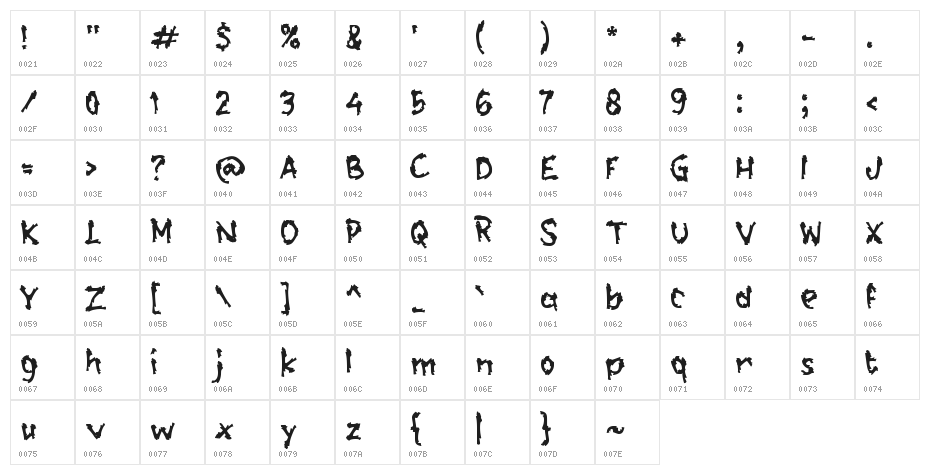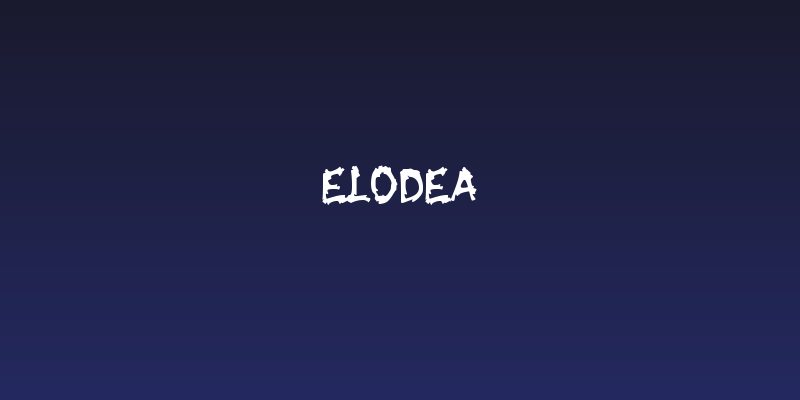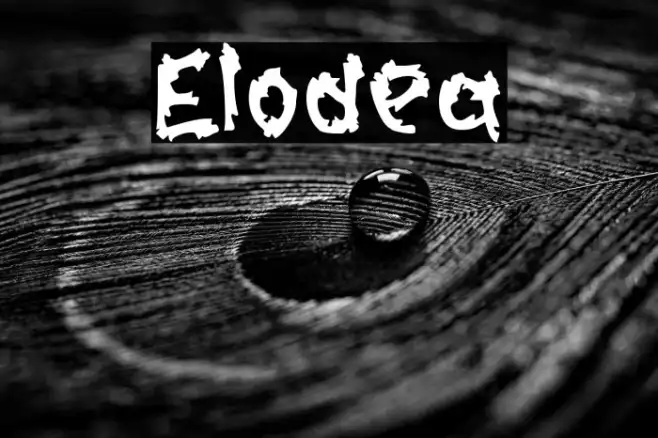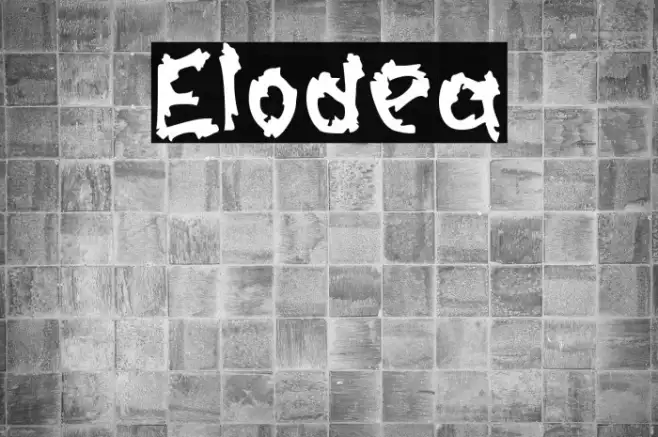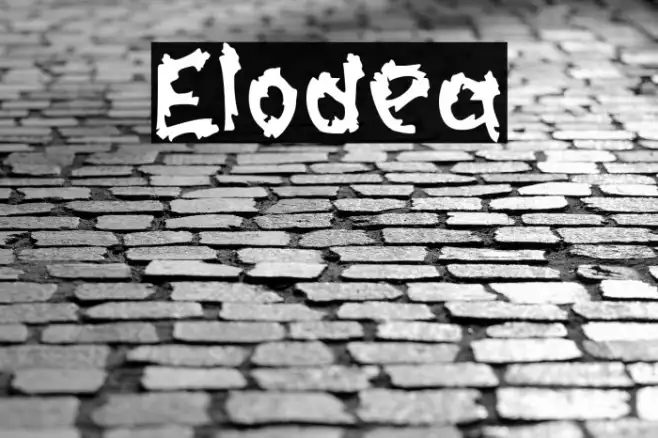
Elodea Font
Elodea Description
This font features a bold and rugged appearance, with a hand-drawn aesthetic that gives it a unique and artistic flair. The characters are irregular and jagged, resembling brush strokes or ink splatters, which adds a dynamic and energetic feel. The uppercase and lowercase letters maintain a consistent style, with exaggerated serifs and uneven lines that create a sense of movement. The numbers and special characters follow the same design principles, ensuring a cohesive look across all elements. This font is ideal for projects that require a bold statement or an edgy, creative touch.